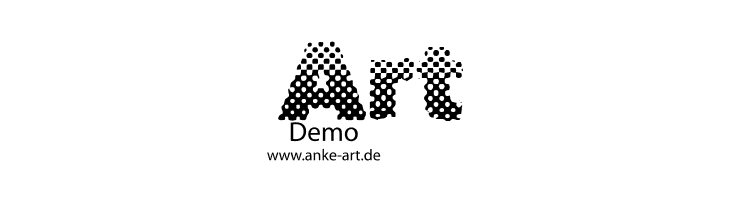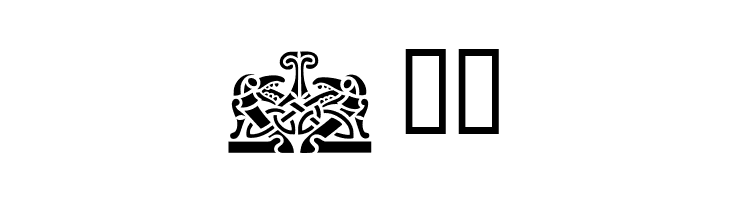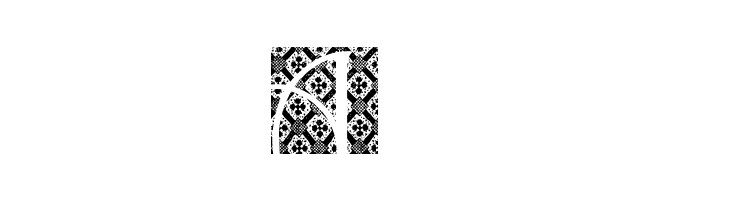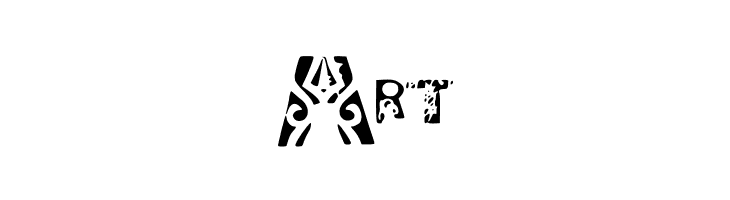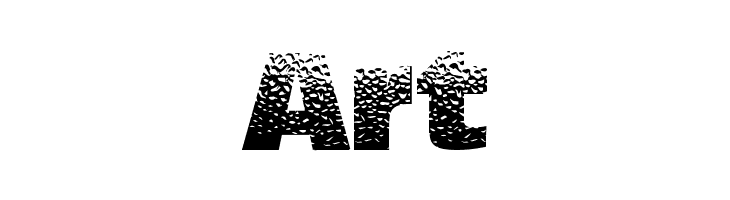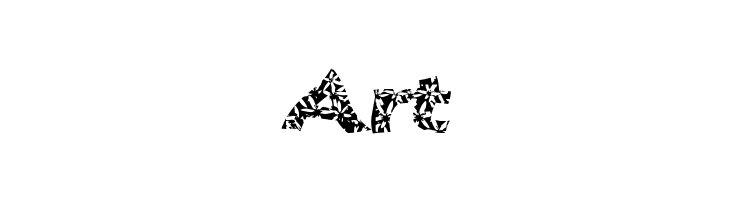
A decorative font featuring intricate batik patterns within each character.
A bold, geometric font with diagonal striped patterns for a modern, dynamic look.
A bold, geometric sans-serif font with a unique textured pattern.
A bold, textured font with a speckled pattern and strong presence.
A bold, decorative font with a retro style and dotted interior pattern.
A playful, decorative font with a tropical, textured pattern.
A bold, textured font with rugged, organic patterns and jagged edges.